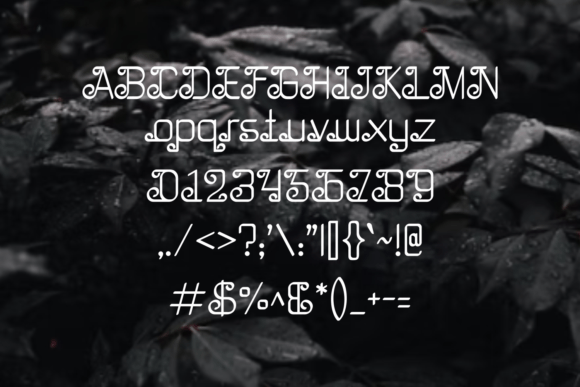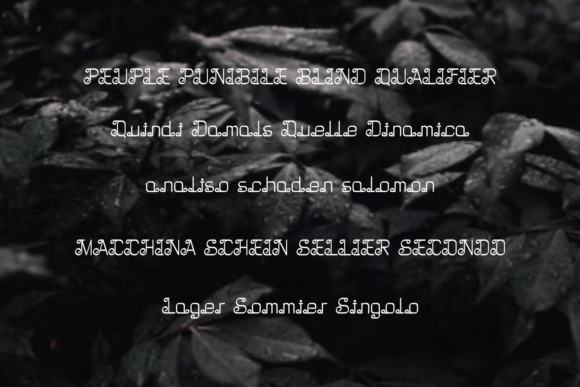
Introduction to Banura Font
Banura is a cool and stylish display font.
Key Features of Banura Font
Why Choose Banura Font?
Banura Font offers exceptional quality and versatility, making it a valuable addition to your design toolkit. Whether you’re creating for personal projects or commercial use, Banura Font delivers professional results.